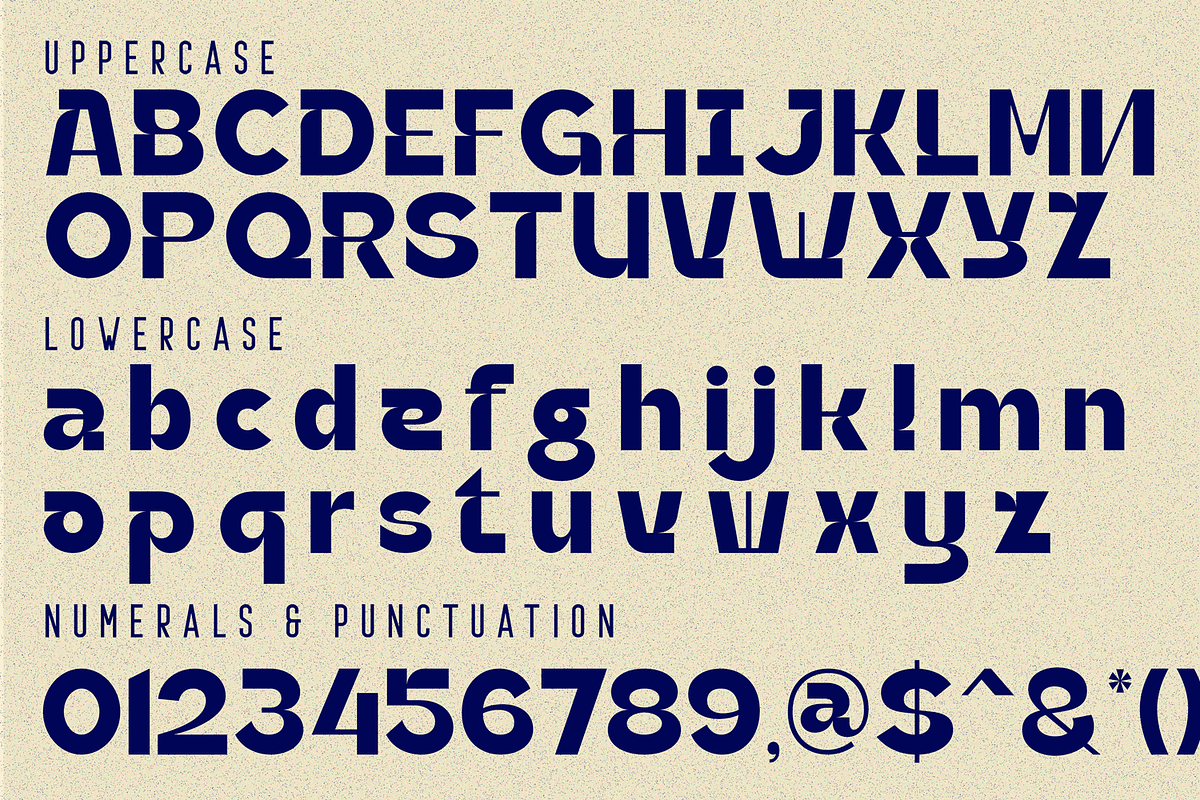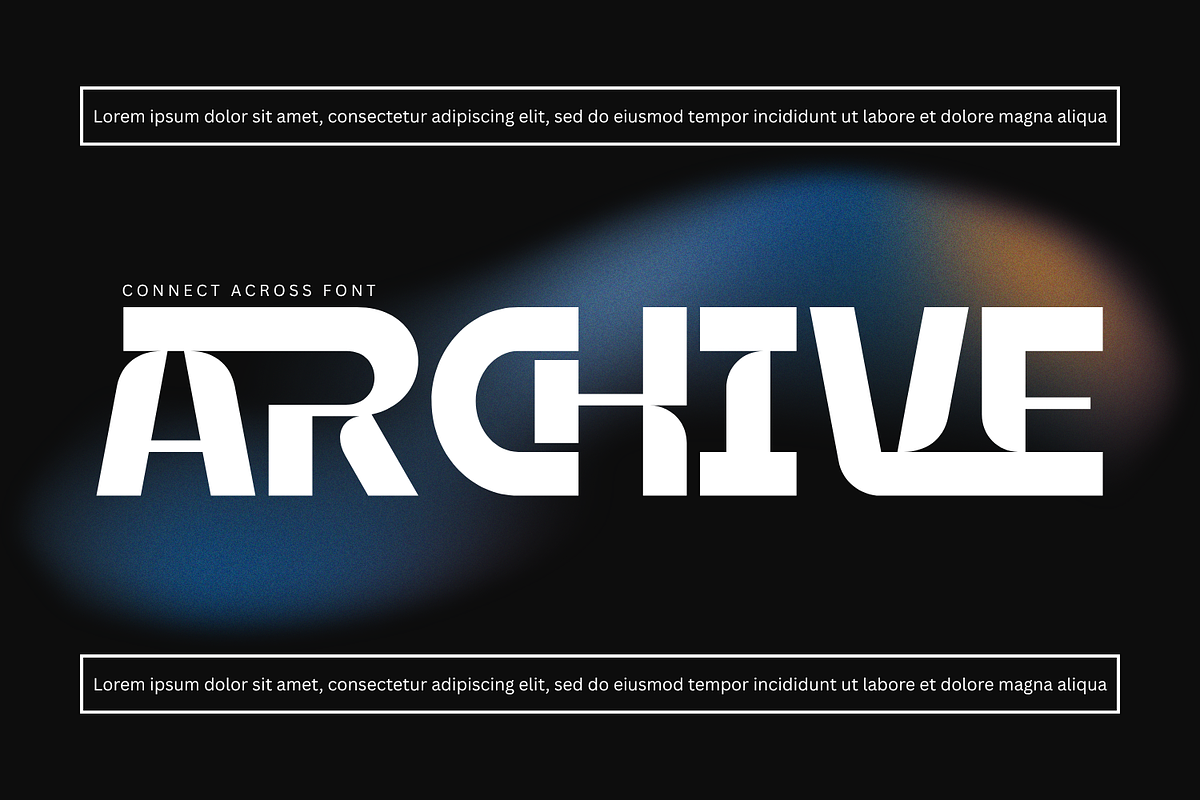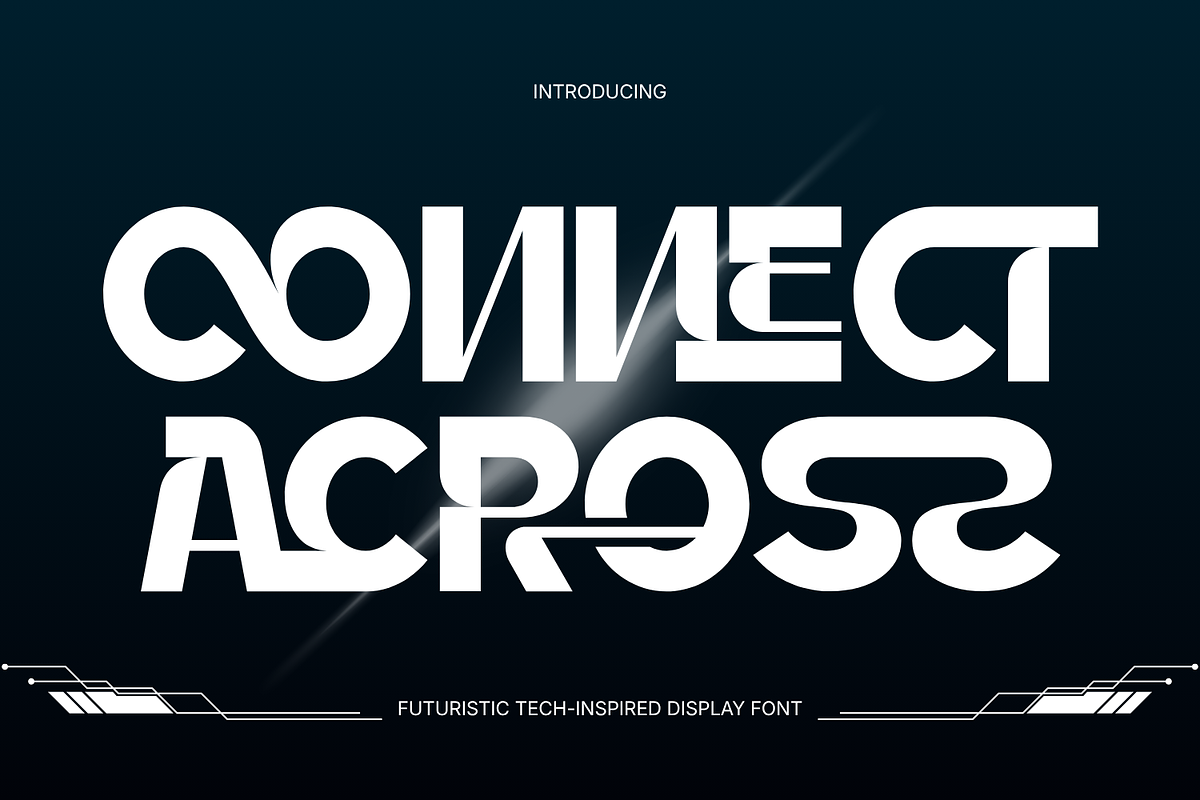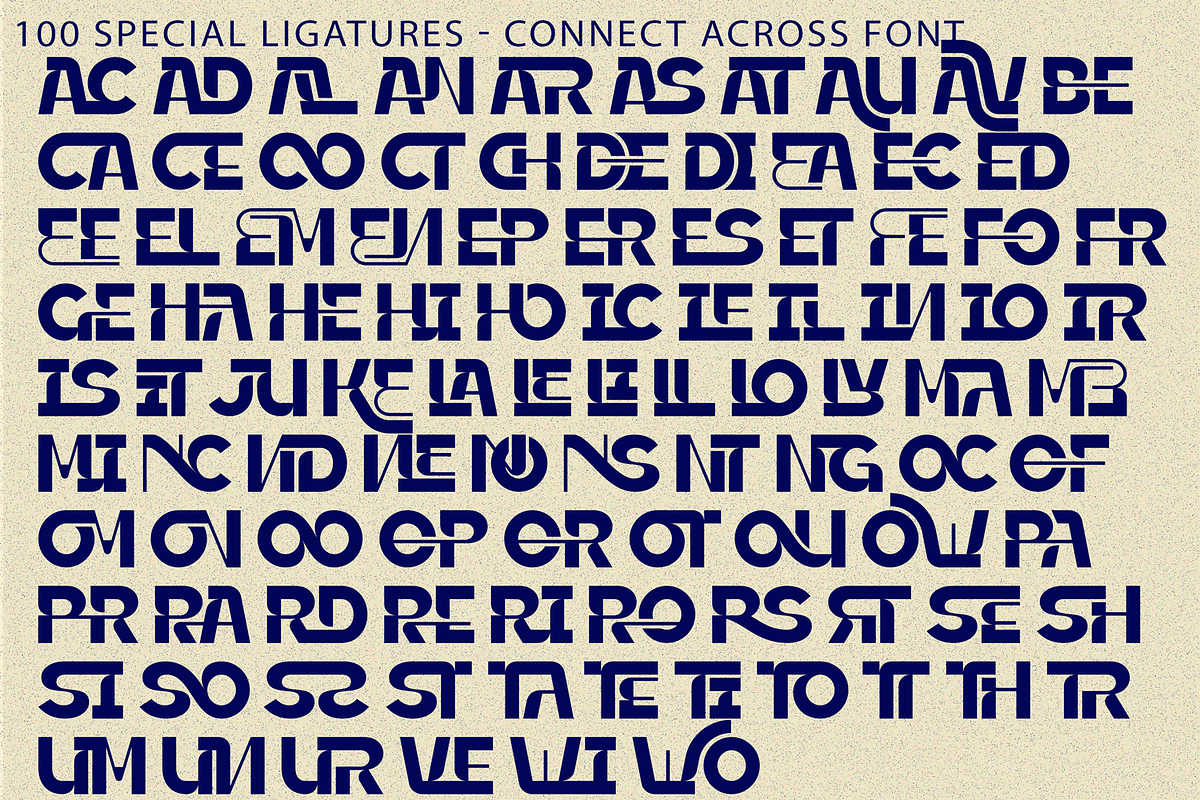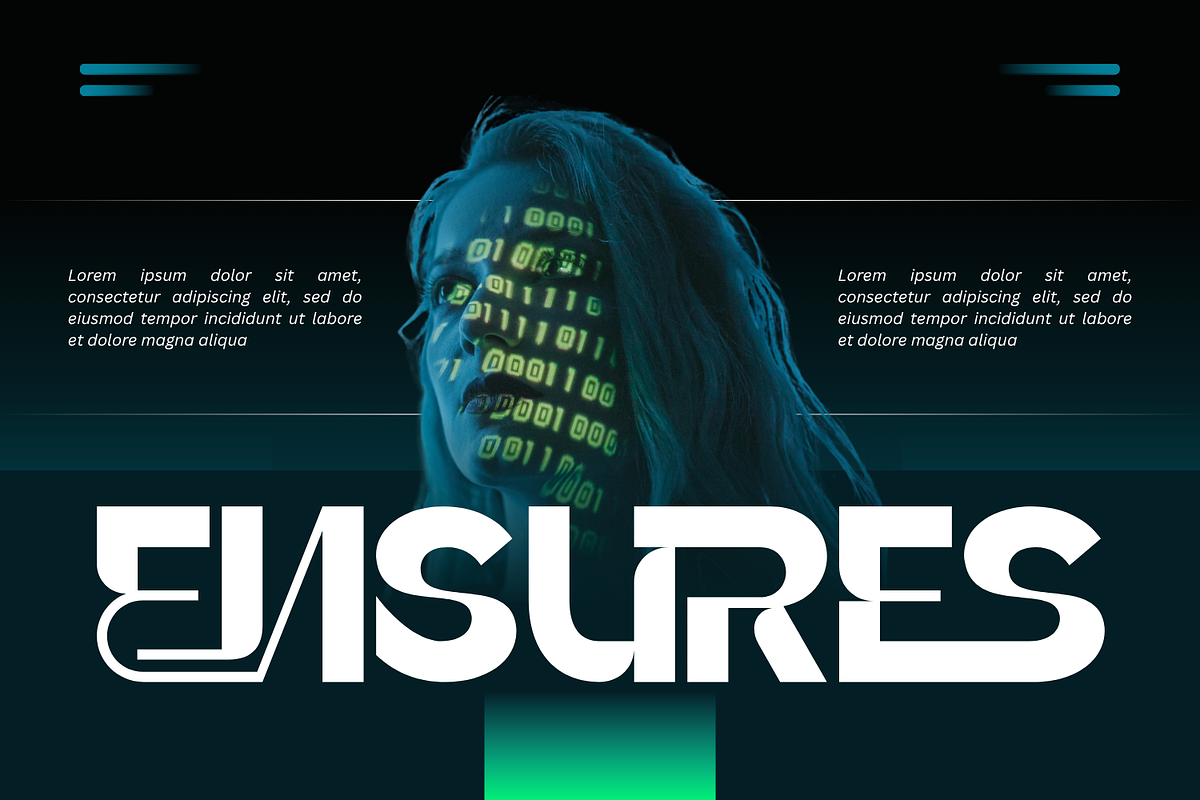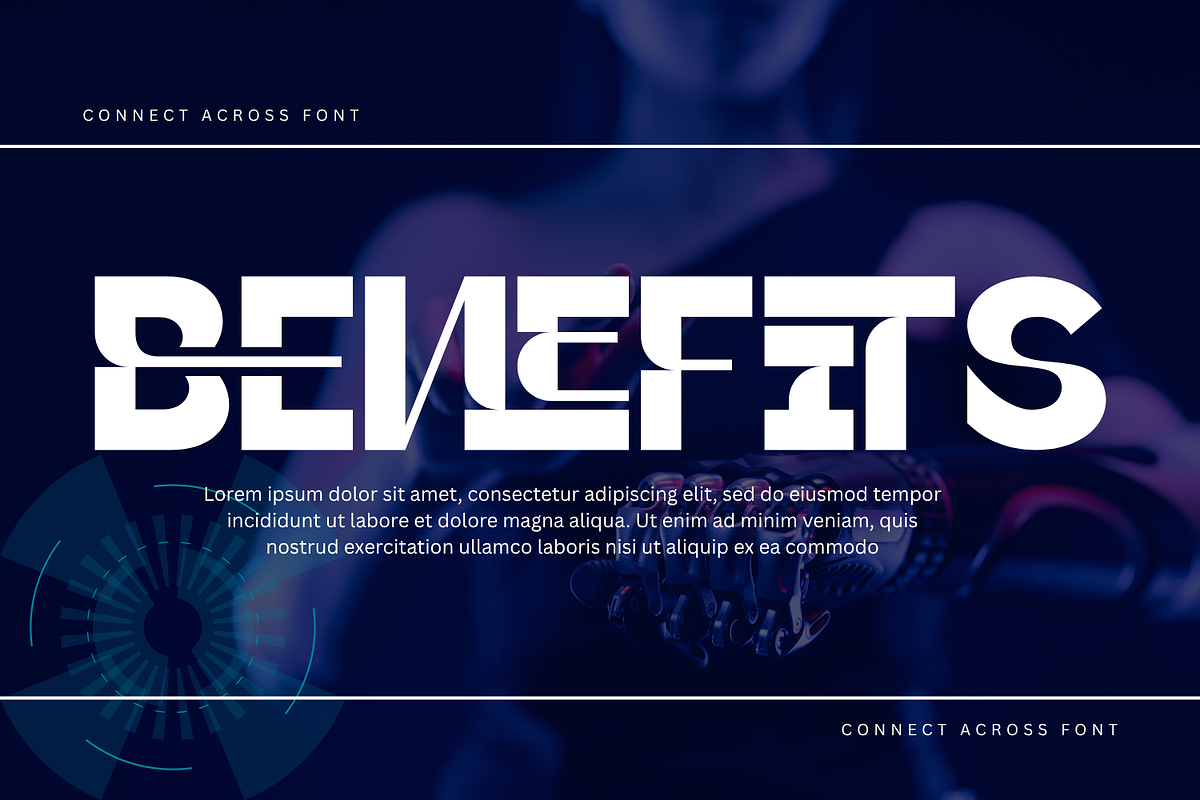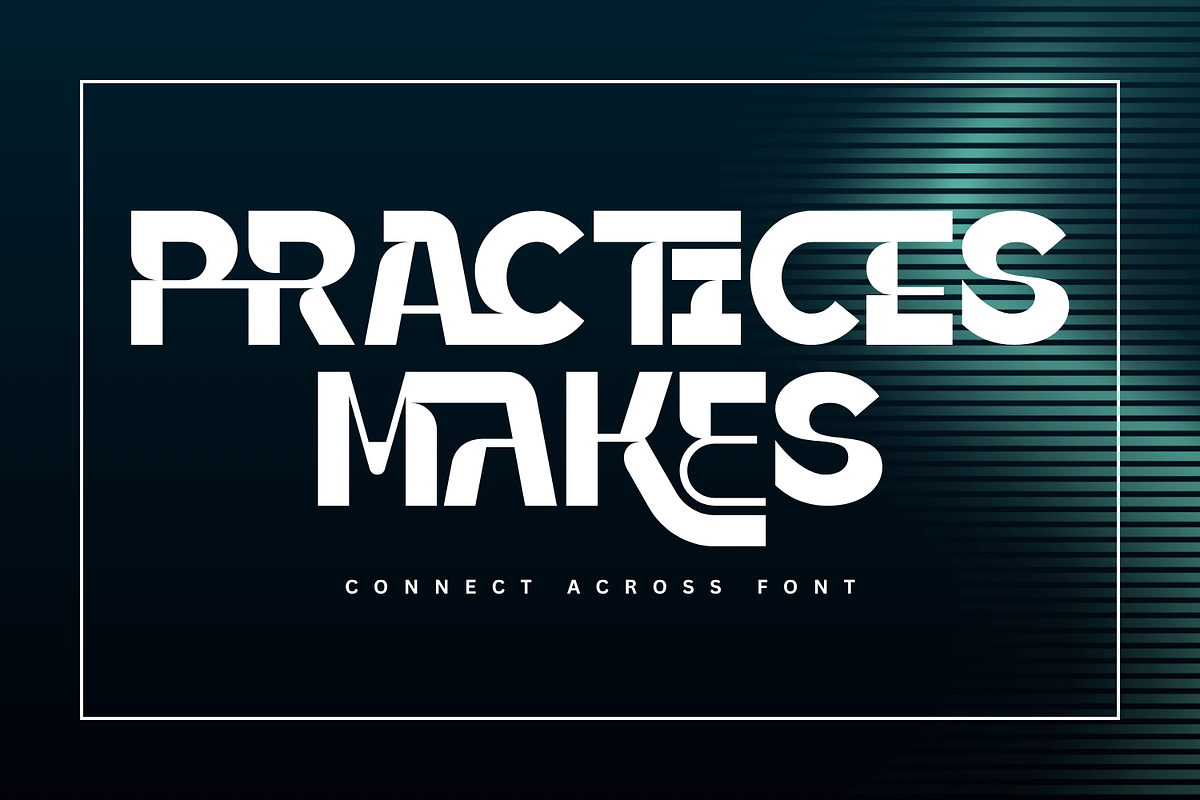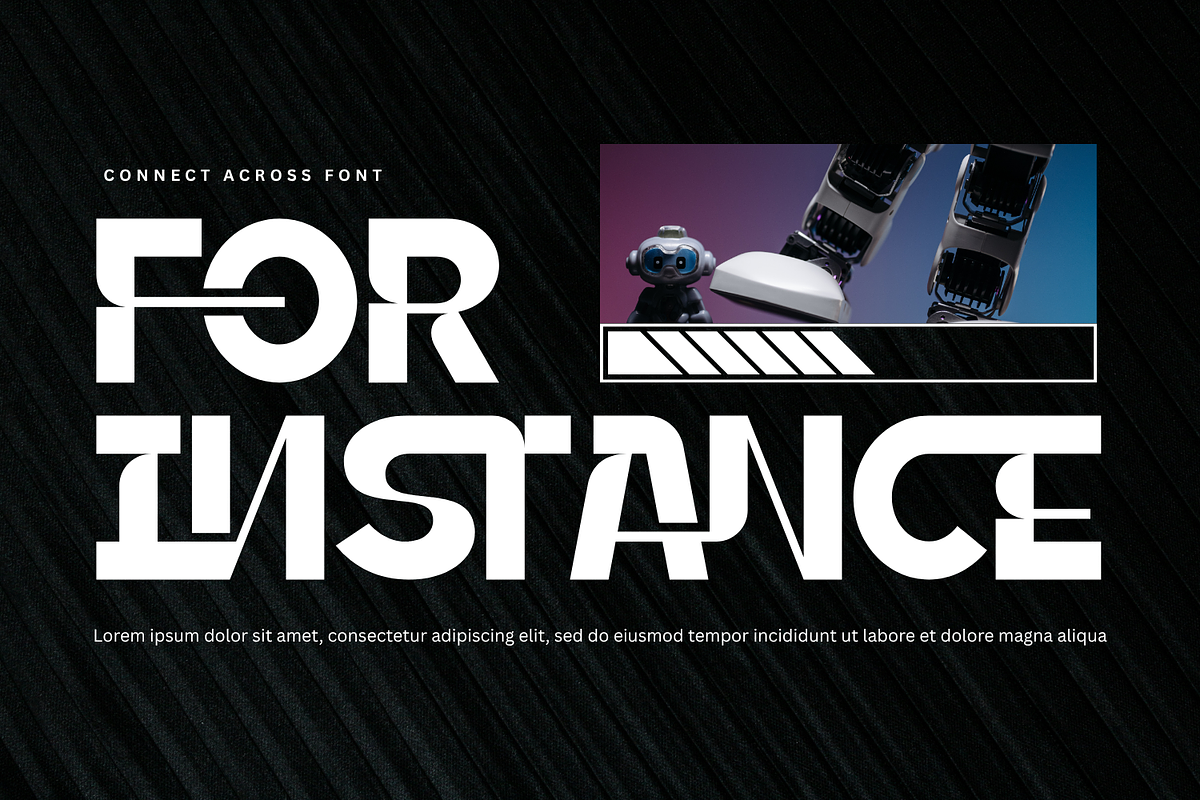
CONNECT ACROSS - GEOMETRIC FONT
CONNECT ACROSS - GEOMETRIC FONT is a bold geometric display typeface that explores the intersection of modernist simplicity, experimental typography, and futuristic visual design. Built from clean geometric forms, broad curves, straight structural strokes, and carefully controlled negative spaces, the typeface transforms familiar letterforms into distinctive graphic shapes with a strong architectural presence. Its unconventional construction, extended terminals, interrupted forms, and unexpected connections give CONNECT ACROSS a unique identity while maintaining a clean and sophisticated appearance.
The design combines circular and rectangular geometry with sharp cuts and asymmetric details, creating an engaging contrast between softness and precision. Some characters feature sweeping rounded structures, while others use dramatically simplified or fragmented forms, giving words an almost logo-like quality. This modular approach makes CONNECT ACROSS especially effective when typography needs to become a central part of the visual composition rather than simply convey information.
🔤Features:
Uppercase & Lowercase Letters
Around 100 Special Ligatures & Alternates
Accented Characters for multilingual support
🔤About 100 ligatures combined with Stylistic Alternates Font:
AC AD AL AN AR AS AT AU AV BE CA CE CH CO CT DE DI EA EC ED EE EL EM EN EP ER ES ET FE FO FR GE HA HE HI HO IE IC IL IN IO IR IS IT JU KE LA LE LI LL LO LY MA ME MI NC ND NE NG NO NT NS OC OF OM ON OO OP OR OT OU OW PA PR RA RD RE RI RO RS RT SE SH SI SO SS ST TA TE TH TI TO TR TT UM UN UR VE WI WO